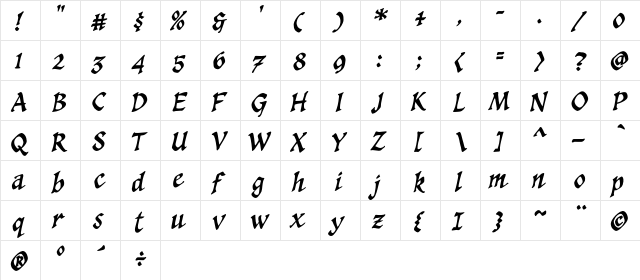
CCSpellcaster Italic
Design Context for CCSpellcaster Typeface
CCSpellcaster takes a measured approach to typography — its balanced proportions and neutral character make it a reliable workhorse for both digital and print work. Its italic angle brings a sense of urgency and motion to the letterforms.
Pro Tip: Try CCSpellcaster for annotation and caption copy alongside an upright companion — the contrast in angle creates a dynamic but ordered typographic system.